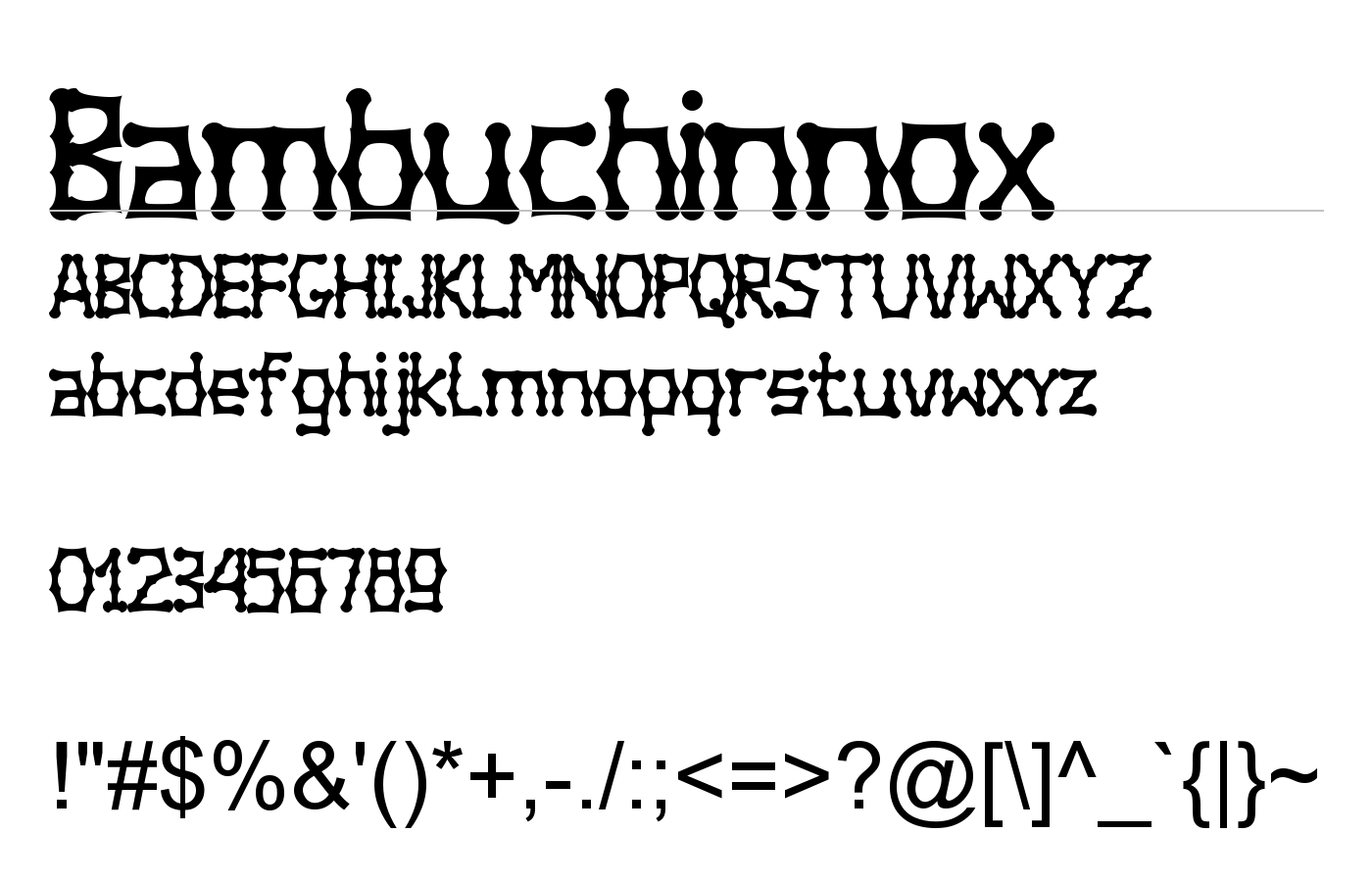
Bambuchinnox is a bold and quirky serif font with a distinctive, organic texture that gives it a playful yet slightly eerie personality. Its irregular shapes and high contrast between thick and thin strokes create a unique, eye-catching look, making it perfect for creative projects, headlines, and branding that want to stand out with a fun, unconventional vibe. This font works best in display settings where its character can shine without compromising readability in longer texts.
Bambuchinnox Font
Designed by Lab-room for viper78 Clerical Office - viper78 aka Vlad Viperov, Volgograd 2013